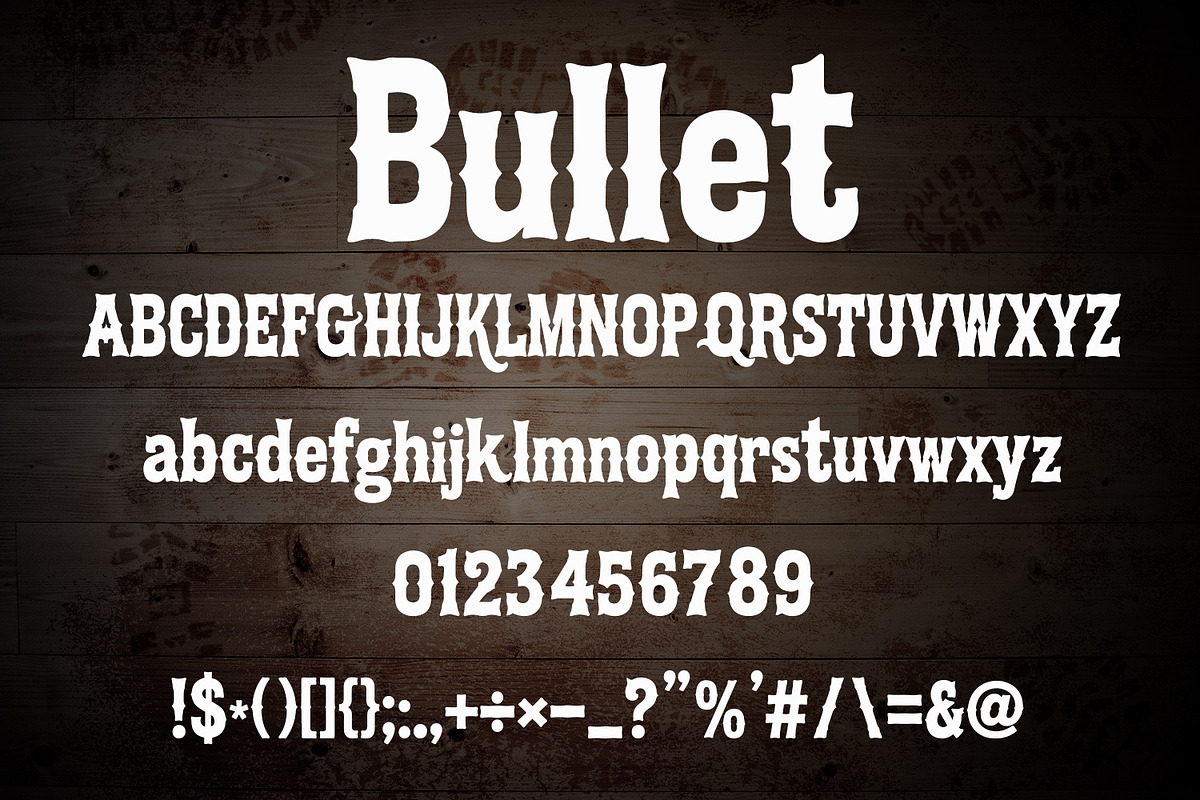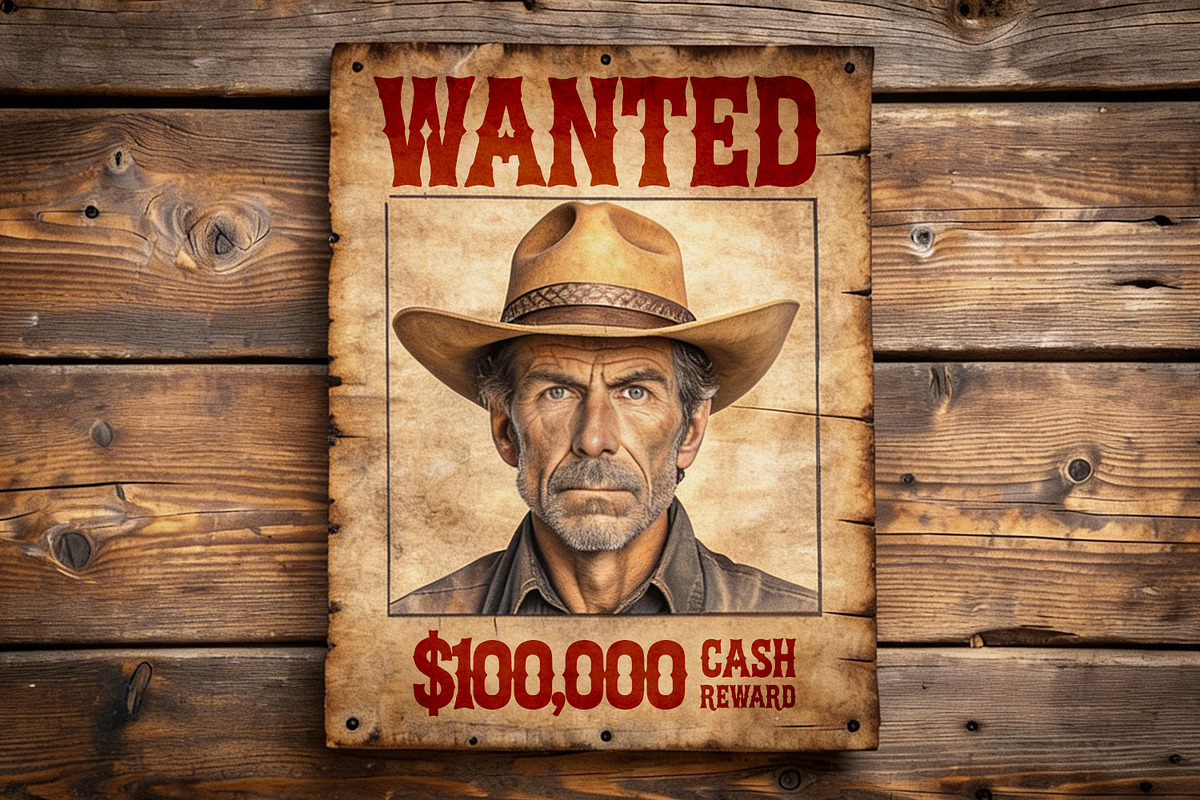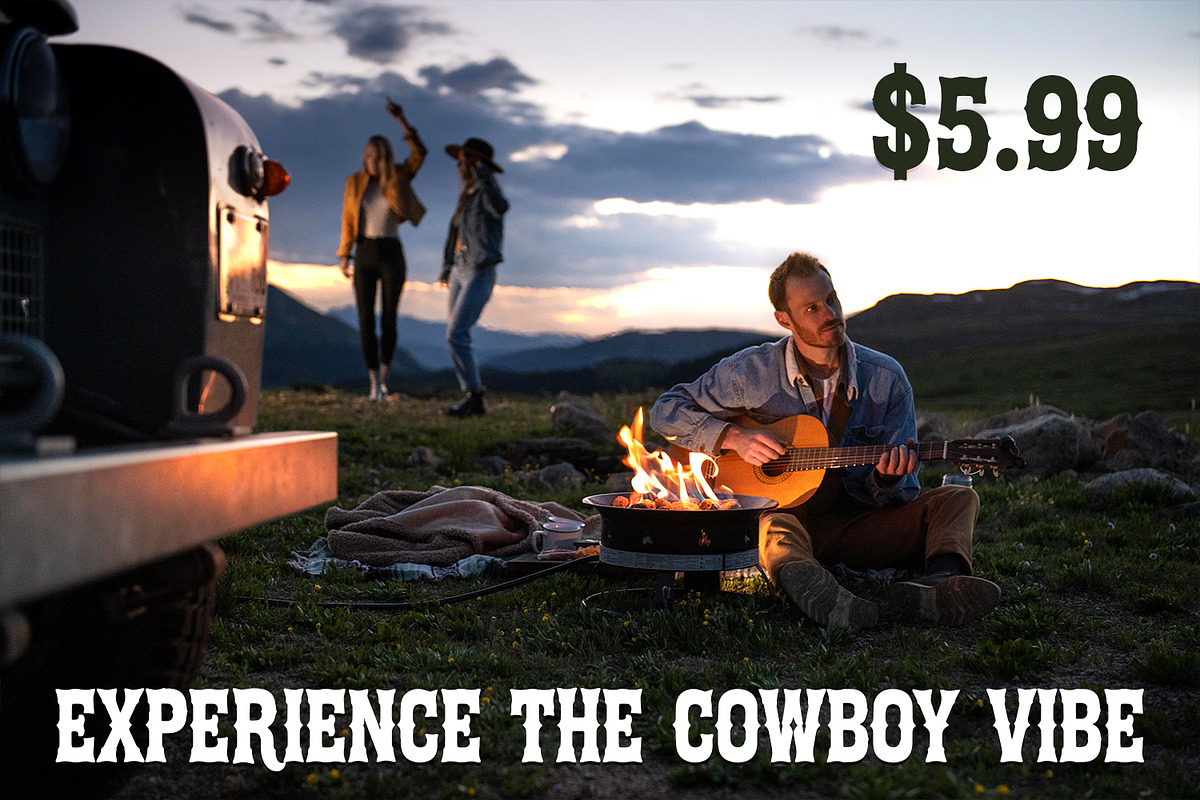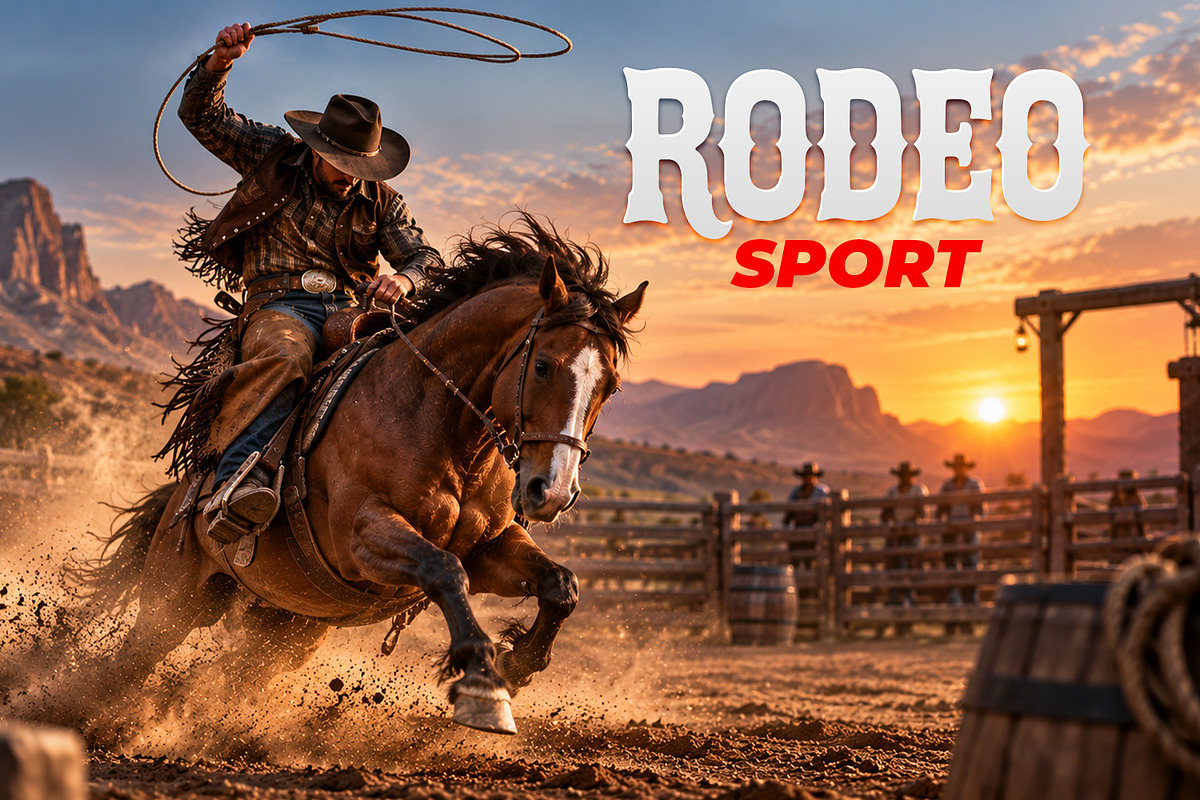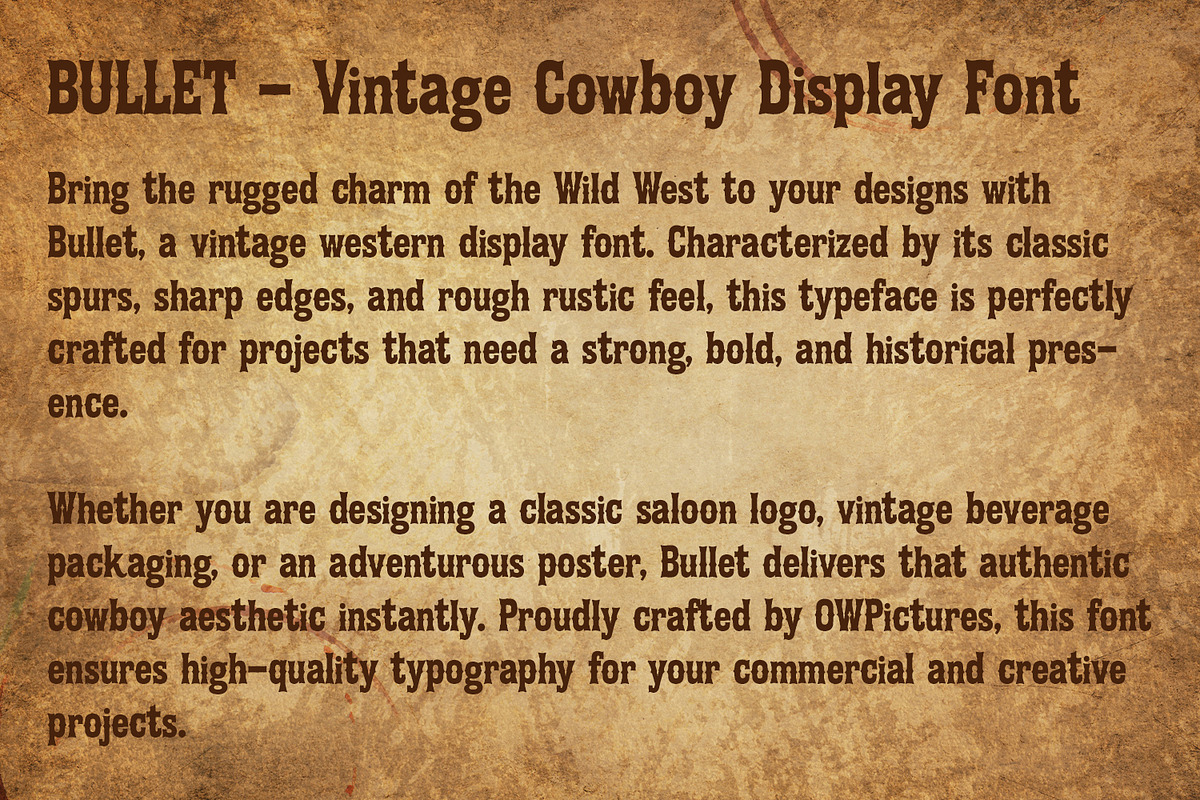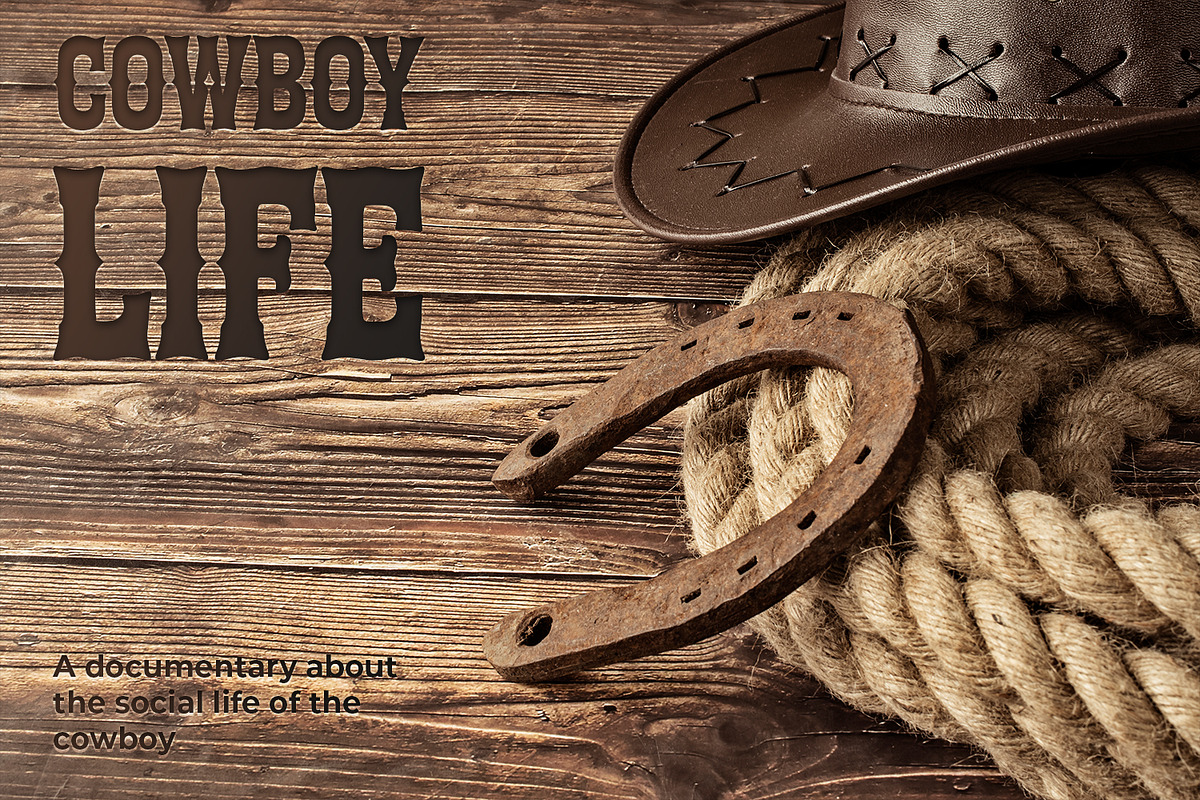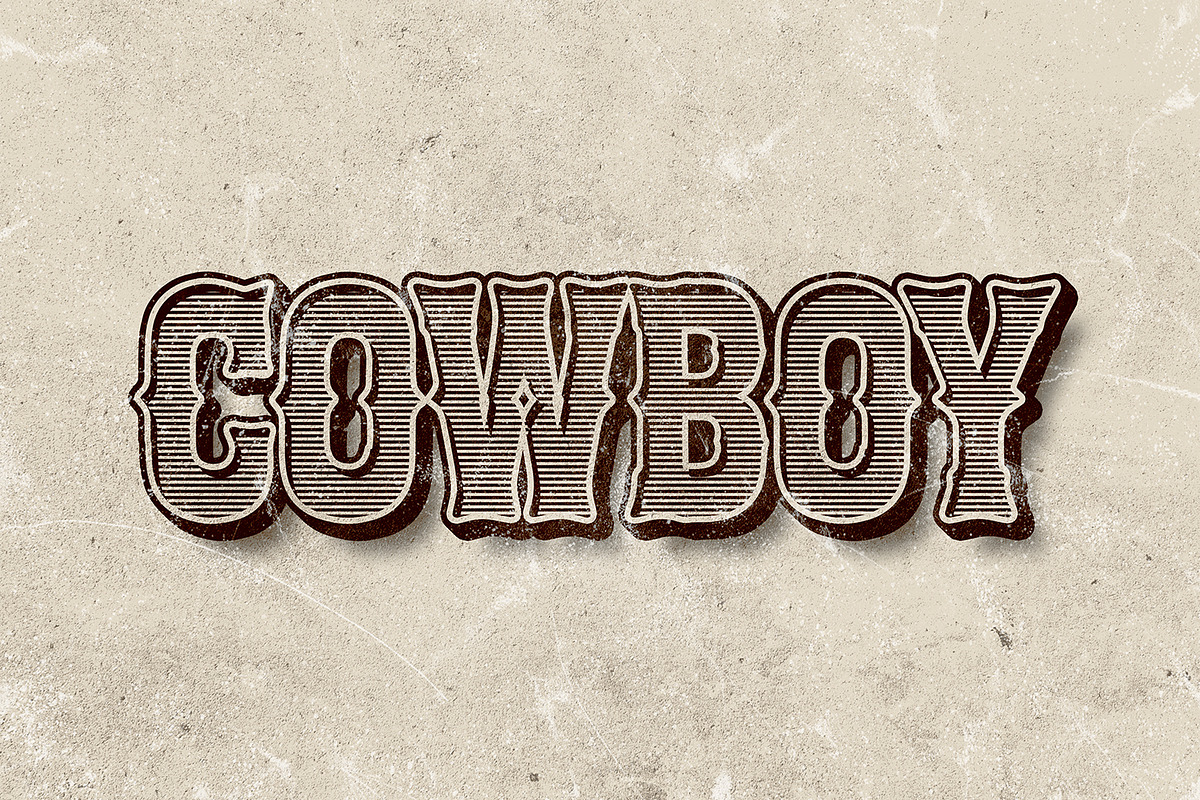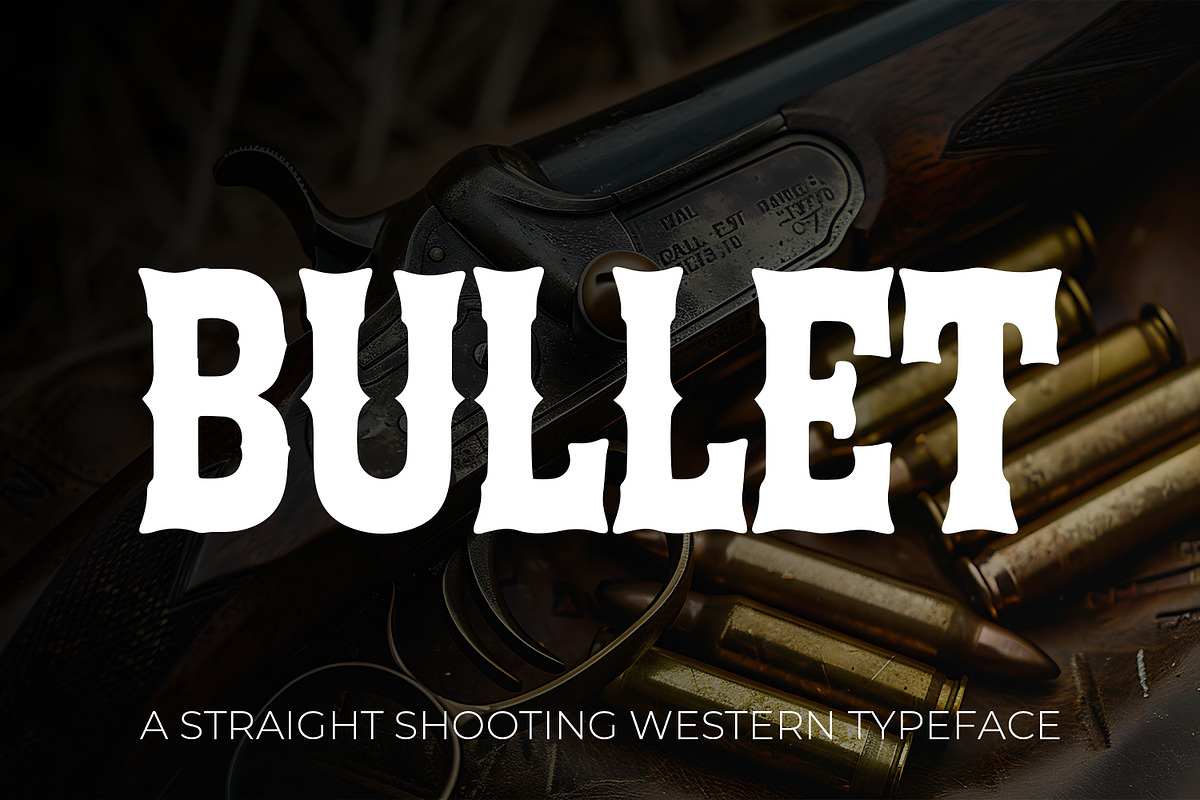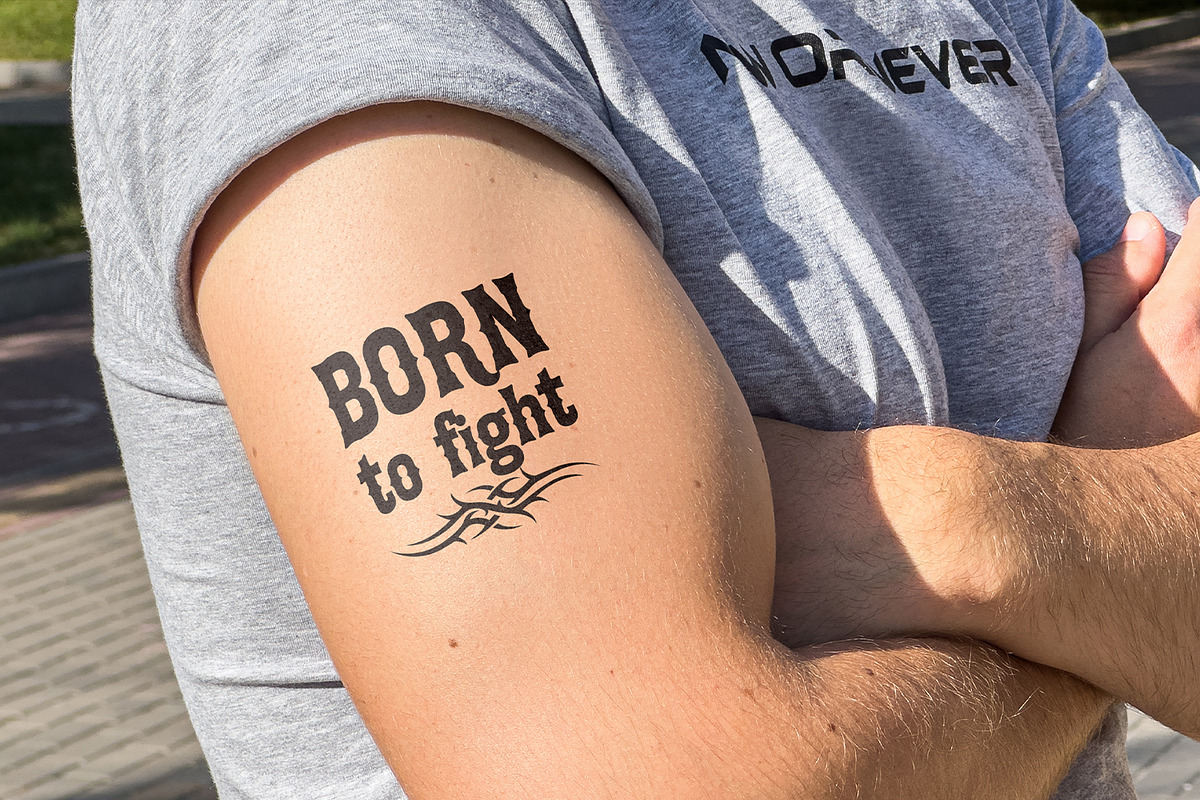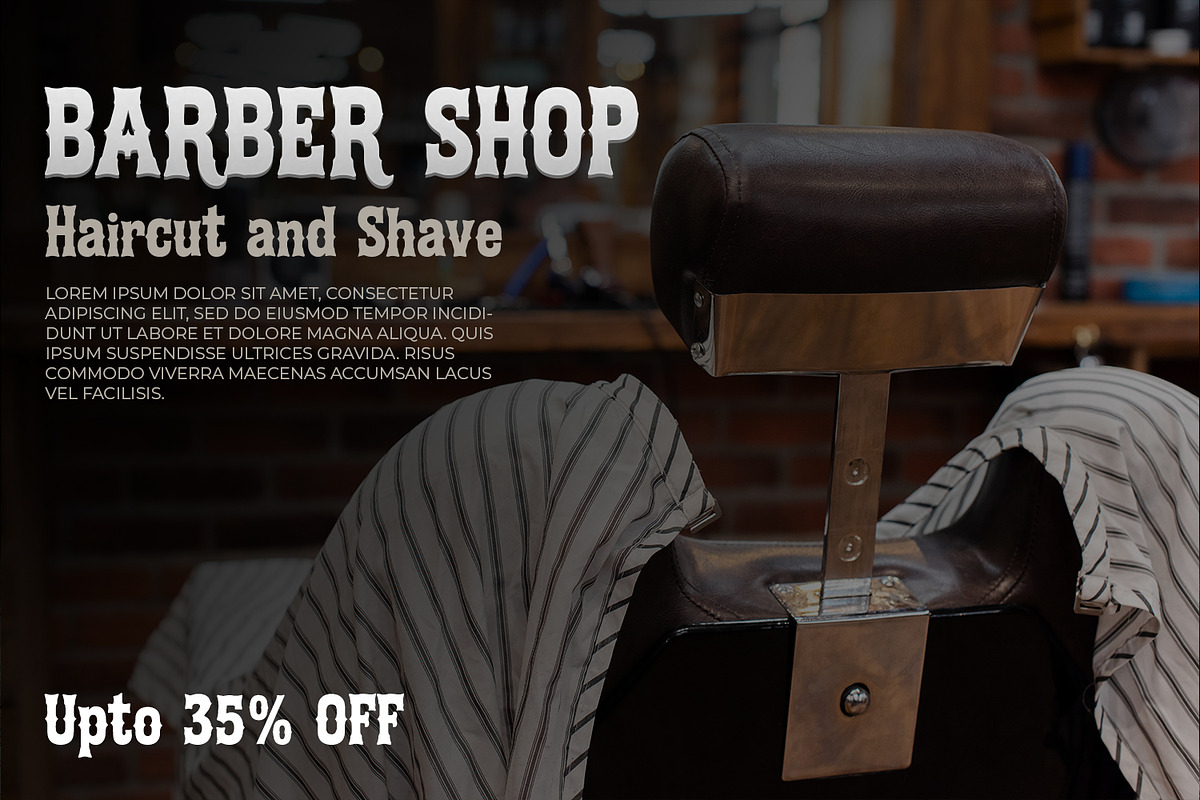
Bullet - Rustic Cowboy Serif
Bring the rugged spirit of the Wild West to your projects with Bullet, a bold vintage display font. Featuring classic spurs, sharp edges, and a rough rustic texture, this western typeface is perfectly crafted for striking designs. Whether you are creating a rustic coffee shop logo, organic product packaging, or a bold western poster, Bullet delivers an authentic cowboy aesthetic. This font includes uppercase and lowercase letters, numerals, punctuation, and a comprehensive character map to elevate your typography. Experience the true western vibe with Bullet today!